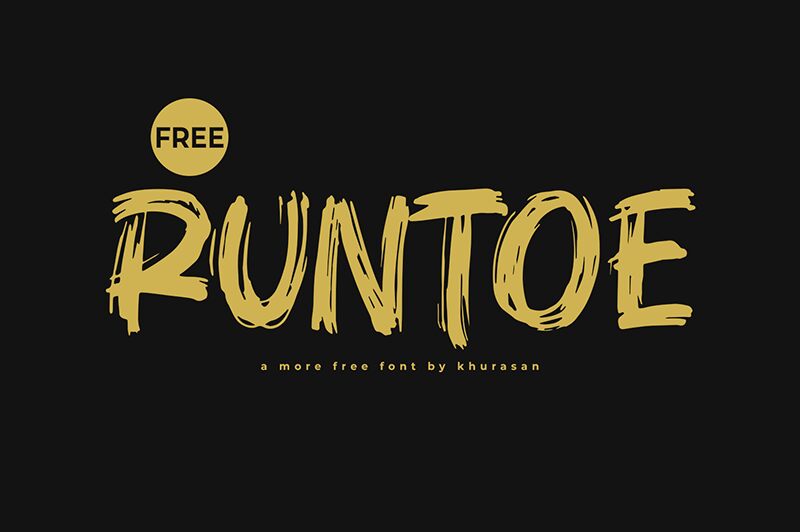
Runtoe
Runtoe, a dynamic and expressive brush font designed by Khurasan, captivates with its raw, energetic aesthetic. The bold strokes and organic flow create a striking visual impact, evoking a sense of movement and spontaneity. This font's unique character lends itself to a range of applications, from modern branding and packaging to eye-catching headlines and impactful editorial designs.
Runtoe's versatility shines through, making it a versatile choice for designers seeking a bold, attention-grabbing typeface. Its bold, brush-like appearance effortlessly conveys a sense of authenticity and individuality, making it an ideal selection for projects that require a strong, distinctive typographic presence, such as logos, posters, and editorial layouts.